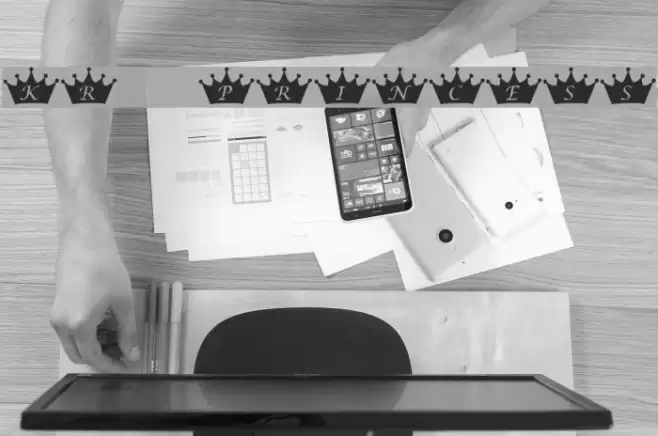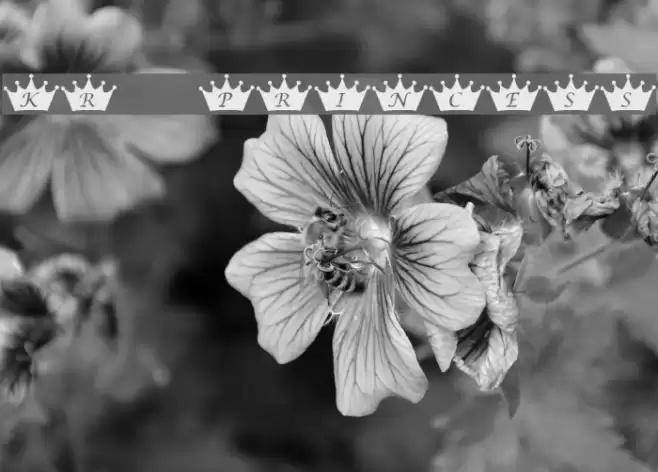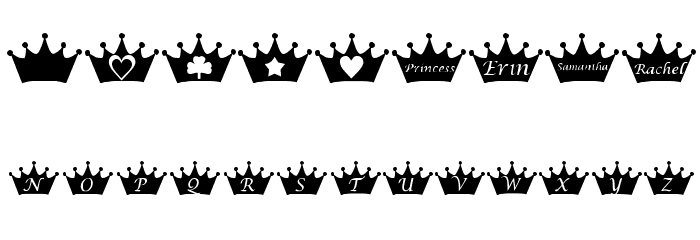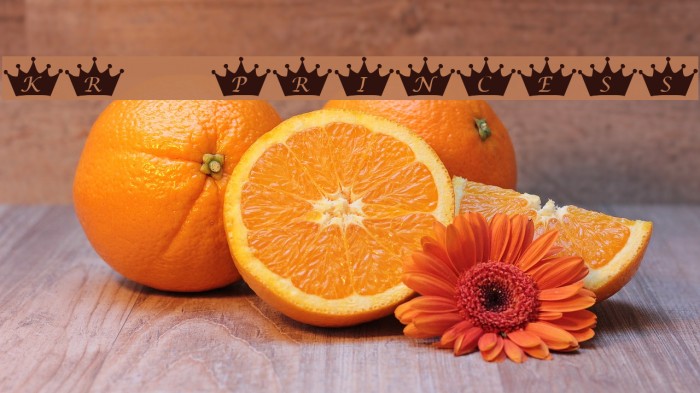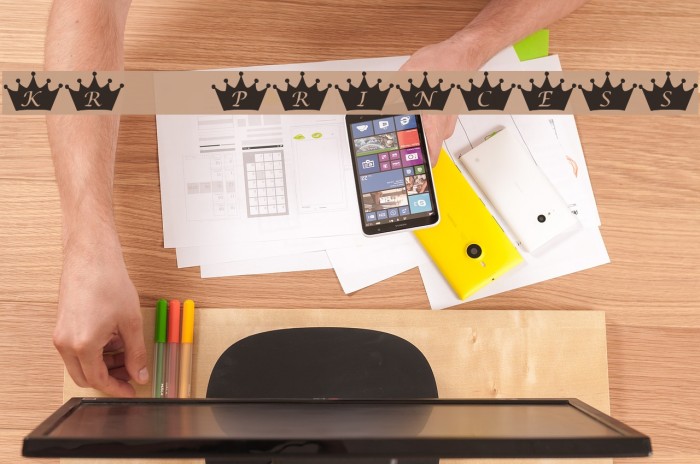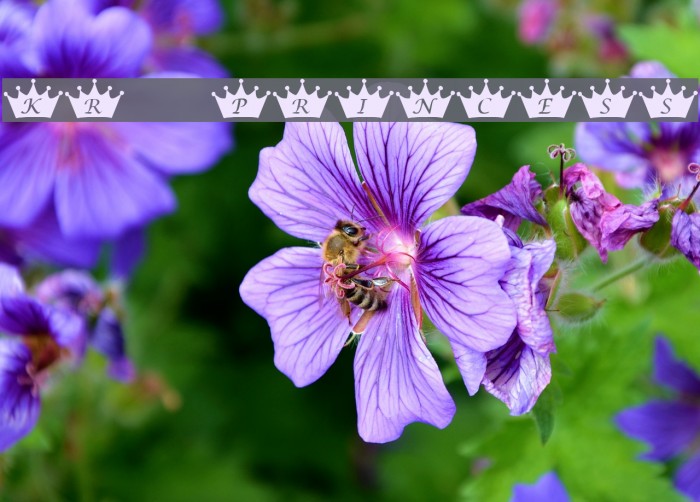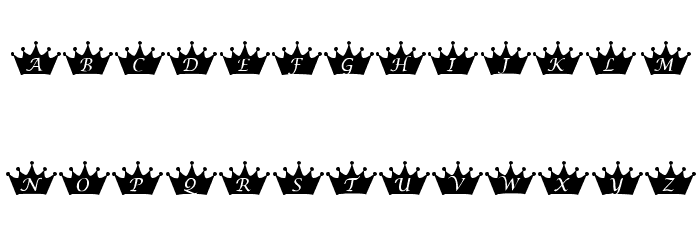
KR PRincEsS Font
KR PRincEsS Description
This decorative font features uppercase letters adorned with crown motifs, giving it a regal and playful appearance. Each letter is elegantly placed within a crown shape, making it ideal for designs that require a touch of royalty or fantasy. The font is highly stylized, with each character maintaining a consistent size and shape within the crown, ensuring uniformity across text. The crowns add a unique flair, making this font suitable for themed projects or branding that aims to convey elegance and sophistication.
A decorative font with letters inside crown motifs, perfect for regal-themed designs from Uncategorized fonts.
- Proposed Projects: Ideal for children's book covers, party invitations, themed event branding, or any project requiring a touch of royalty.
- Use Case: Headlines, Logos, Invitations